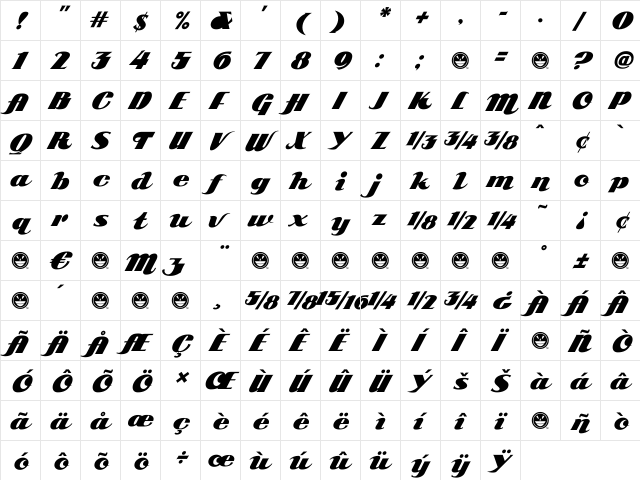
SCRIPT1 ARB-85 Poster Script Normal
Design Context for SCRIPT1 ARB-85 Poster Script Typeface
SCRIPT1 ARB-85 Poster Script brings a calligraphic fluidity to the page — its connecting strokes and expressive curves give it an unmistakably human quality.
Font Pairing: Combine SCRIPT1 ARB-85 Poster Script with a simple geometric sans for maximum contrast — the tension between flowing curves and clean structure is a classic typographic pairing.
Pro Tip: Pair SCRIPT1 ARB-85 Poster Script with a clean sans-serif for supporting text. The contrast between fluid script and geometric structure creates an elegant typographic hierarchy.